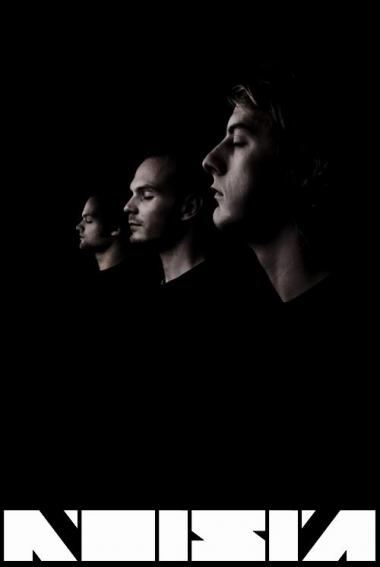
Superb ! It has the quality of a pro font. Numbers and lowercase are missing though ! And numbers are crucial in my artistic utilization of typography ! What a pity !